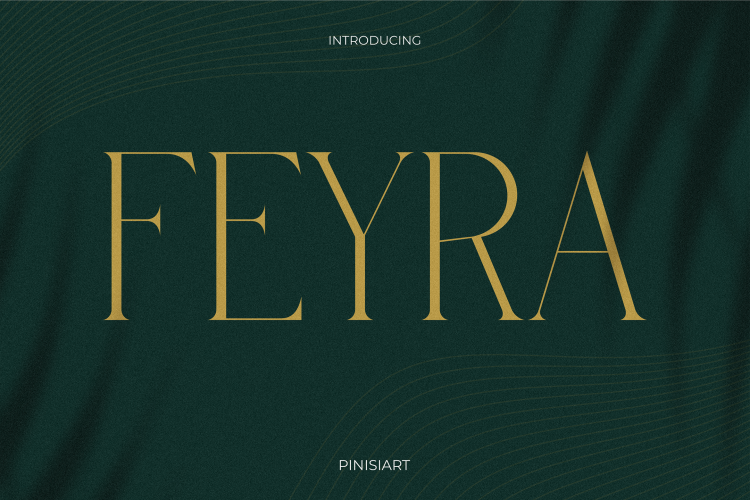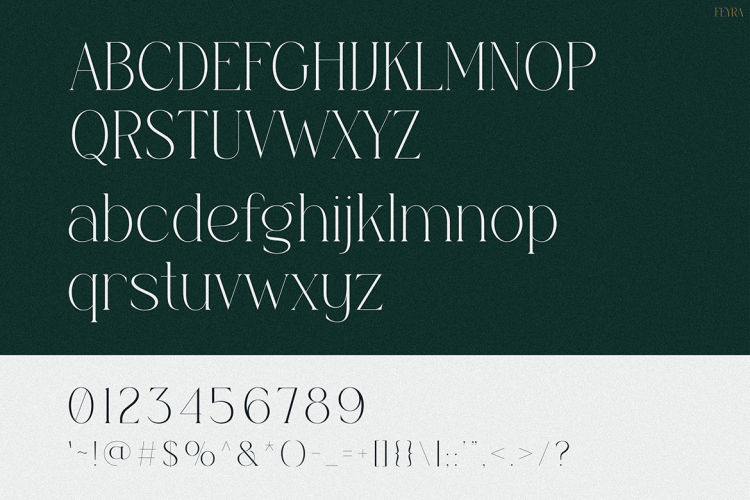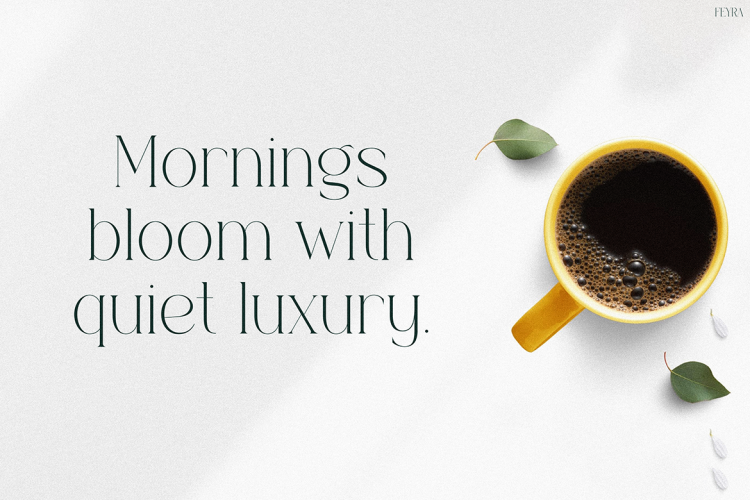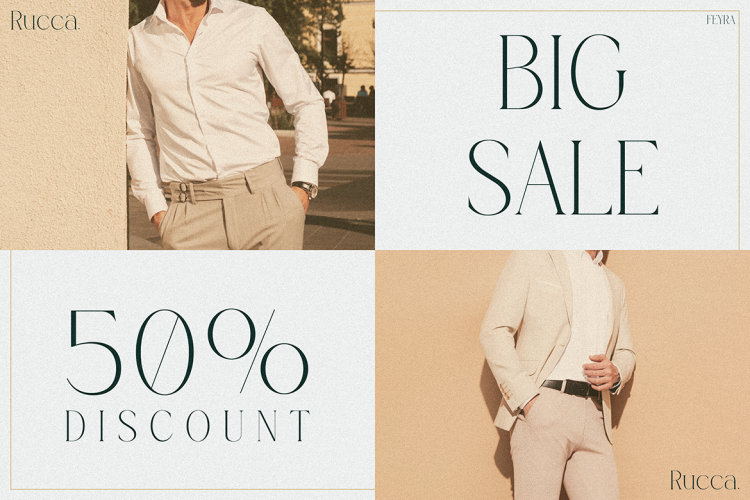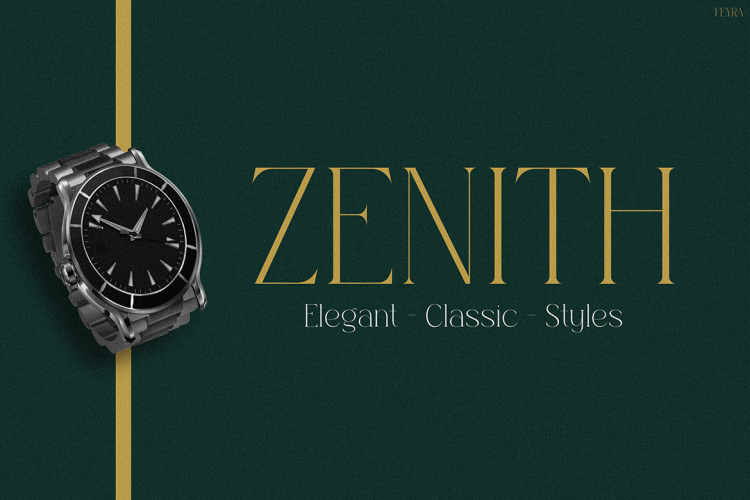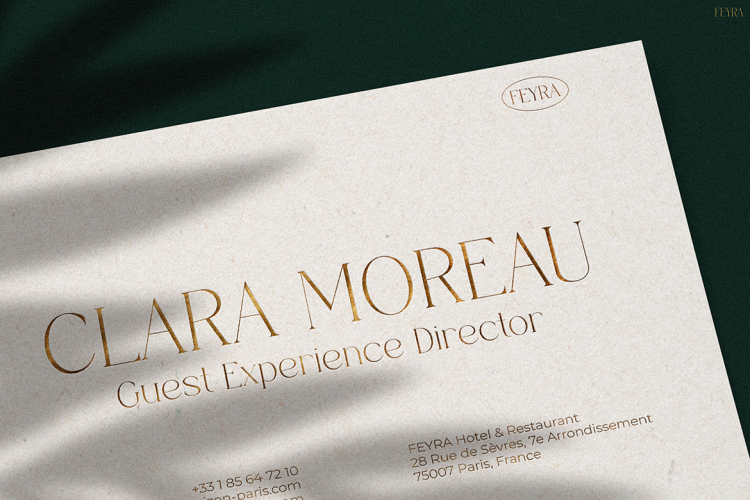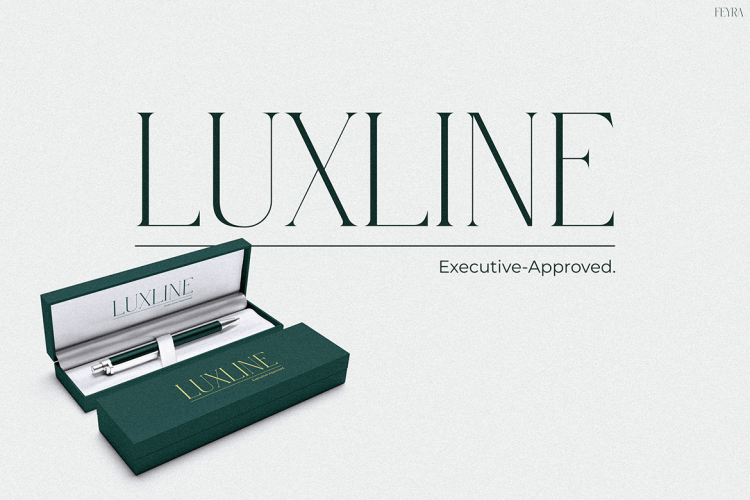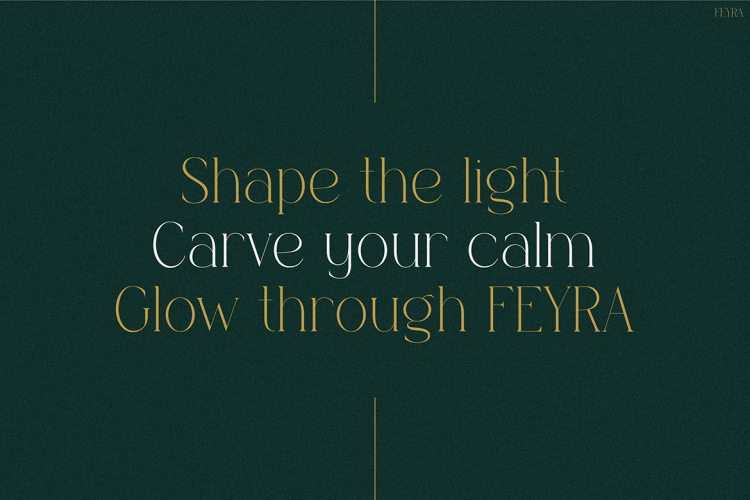
Instagram Font Feyra: A Touch of Timeless Elegance for Modern Branding
Instagram Font Feyra is the perfect font for those who value elegance and clarity. With its tall letterforms and refined serifs, this typeface feels both classic and modern. As a result, it adds a premium look to any design. Whether you’re creating content for digital or print, Feyra helps you build visuals that are stylish and timeless.
What makes Feyra stand out is its balance of beauty and function. Its graceful curves and sharp details elevate text into something memorable. Additionally, each letter is crafted with precision, making it ideal for designs that need a luxurious touch. You can use it for large headlines or in more detailed visual compositions.
Moreover, Feyra works beautifully in clean and elegant layouts. When paired with neutral colors or minimalist imagery, the font truly shines. It creates contrast without being loud, which is why itโs a favorite among refined designers.
Who Is It For?
Instagramaย ย Font Feyra designed for professionals who appreciate high-end aesthetics. For example, fashion brands, beauty influencers, and lifestyle creators can use this font to strengthen their visual identity. Furthermore, agencies focused on editorial or branding work will find it especially useful.
In addition, social media managers looking to boost engagement will love its sleek and cohesive style. Entrepreneurs can also benefit, especially those wanting to appear polished and modern. Even personal brands aiming for a minimalist yet classy rebrand will appreciate Feyraโs versatility.
Ultimately, if your audience values refined and stylish visuals, this font will help you connect with them effortlessly.
In conclusion, Instagram Font Feyra is more than just a typefaceโitโs a visual statement. Not only does it enhance the beauty of your project, but it also communicates sophistication. Whether you’re working on logos, social posts, or websites, Feyra brings elegance to every touchpoint. Try Feyra today and make your brand feel timeless.